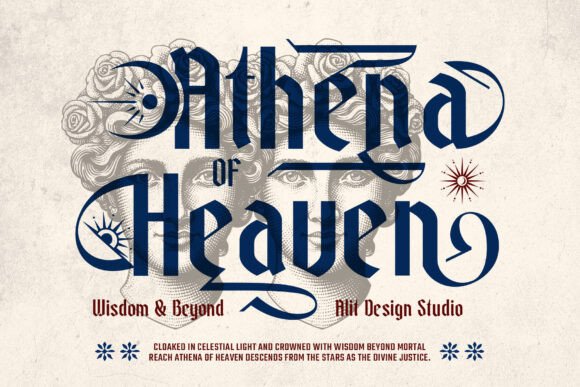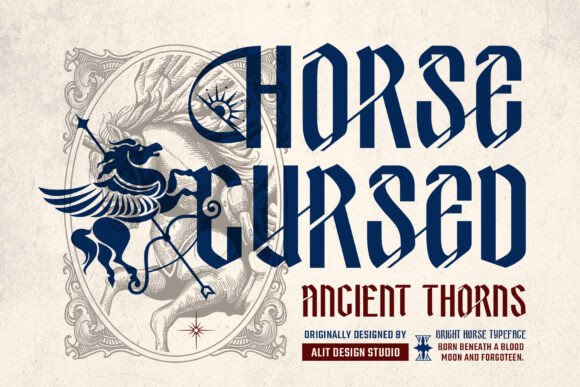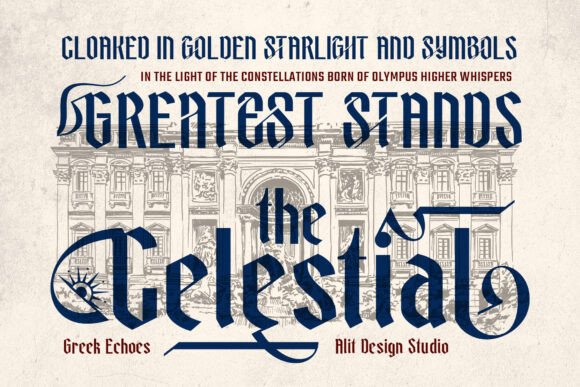
Introduction to Bright Horse Font
Have you ever been working on a creative project, pouring your heart and soul into it, only to feel like something’s missing? That’s when the perfect font can be the game-changer you need. For designers, finding the right typography can be the difference between a good design and a great one.
That’s exactly what the Bright Horse Font offers. This striking typeface masterfully fuses traditional blackletter with bold sans-serif influences, creating a unique blend of historical charm and contemporary edge. With its ability to add depth and sophistication to any design, it’s no wonder that designers are falling in love with the Bright Horse Font.
Designed by Alit Design Studio, this high-quality font is a valuable resource for any designer looking to add a touch of elegance to their work. Whether you’re working on a project that requires a transparent background or a bold statement, the Bright Horse Font is sure to deliver. And the best part? It’s available for free download, making it an accessible design resource for creatives of all levels.
Key Features of Bright Horse Font
- Unique, hand-crafted design with a distinctive aesthetic
- Perfect for use in logos, branding, and other creative applications
Honest Review: Bright Horse Font
I recently had the chance to work with the Bright Horse Font, and I must say it’s a solid addition to any designer’s toolkit. This font is perfect for a creative project that requires a touch of elegance and sophistication.
- High-quality design: The Bright Horse Font is a beautifully crafted typeface that exudes refinement and class.
- Limited character set: The font’s character set is somewhat limited, which may be a drawback for designers who need a wide range of characters.
- No bold or italic versions: While the font is beautiful, it would be even more versatile with bold and italic versions available.
Overall, I’m impressed with the Bright Horse Font. It’s a great design resource for anyone working on a creative project that requires a touch of sophistication. While it may have some limitations, the font’s high quality and free availability make it a valuable addition to any designer’s toolkit.
Tips for Getting the Most Out of Bright Horse Font
Experiment with different font sizes and styles to create a unique look for your creative project. Use the Bright Horse Font in conjunction with other design resources to add depth and interest to your design.
The Bright Horse Font is a high-quality design resource that is perfect for creative projects, including social media graphics, business cards, and brochures. It’s also great for adding a touch of elegance to presentations and documents.